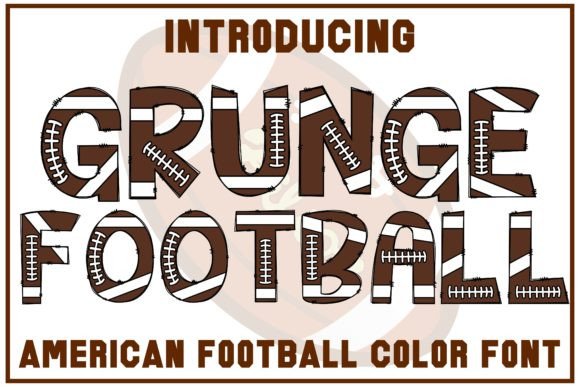
Looking for a cool and unique font that will make your sports-related designs stand out? Look no further than Grunge Football Font! This colorful font, created by MDF, is perfect for any project related to football or jerseys.
One of the great things about Grunge Football Font is its versatility. It can be used for a variety of different designs, from logos to posters to social media graphics. And because it's a color font (Opentype-SVG), it opens up endless possibilities for creative expression.
So why choose Grunge Football Font over other fonts? For starters, its colorful and grungy design sets it apart from more traditional sports fonts. It's the perfect choice if you're looking to add a little edge and personality to your designs. And because it's specifically designed for football and jerseys, it's a great way to show your team spirit and create a cohesive brand identity.
But don't just take our word for it. Check out some of the amazing designs created using Grunge Football Font, and see for yourself why it's quickly becoming a fan favorite. Whether you're a professional designer or just starting out, Grunge Football Font is sure to take your sports-related designs to the next level.